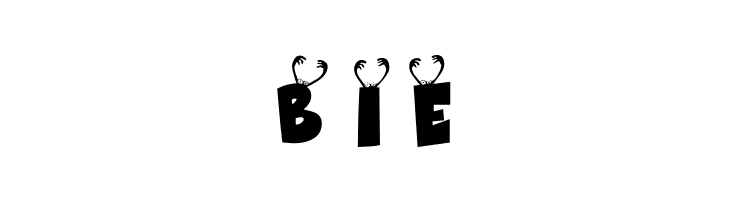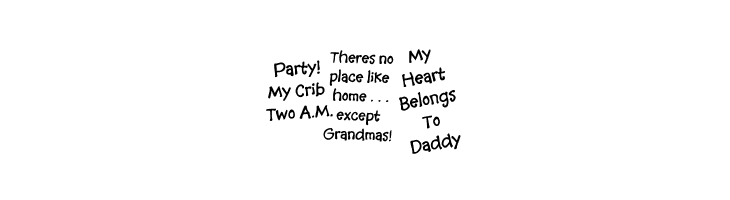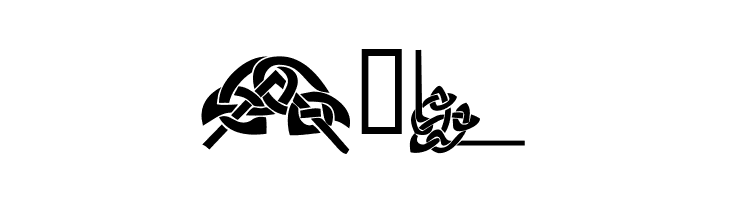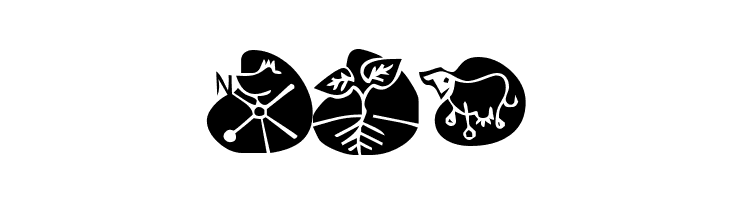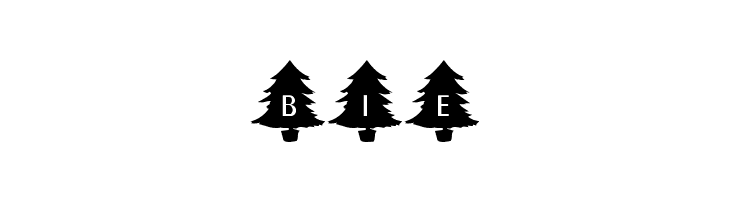
A bold, playful font with decorative antler-like elements on each letter.
A bold, uppercase font with snowboarder silhouettes for a dynamic, sporty look.
A playful, hand-drawn font with a whimsical, childlike style.
A decorative font with Valentine-themed illustrations.
A decorative font with intricate Celtic knot designs.
A decorative font featuring farm-themed icons with bold, graphic silhouettes.
A whimsical, decorative font with Valentine-themed doodles and playful illustrations.
A festive font with letters embedded in Christmas tree silhouettes.
A bold, cinematic font with characters inside clapperboard frames.